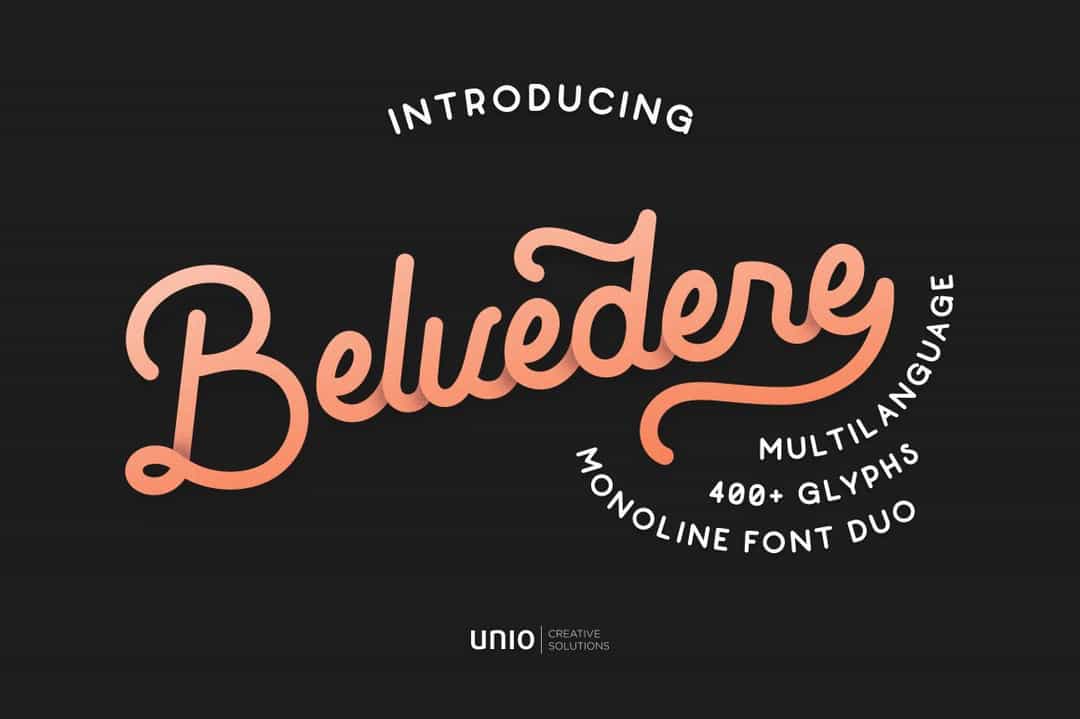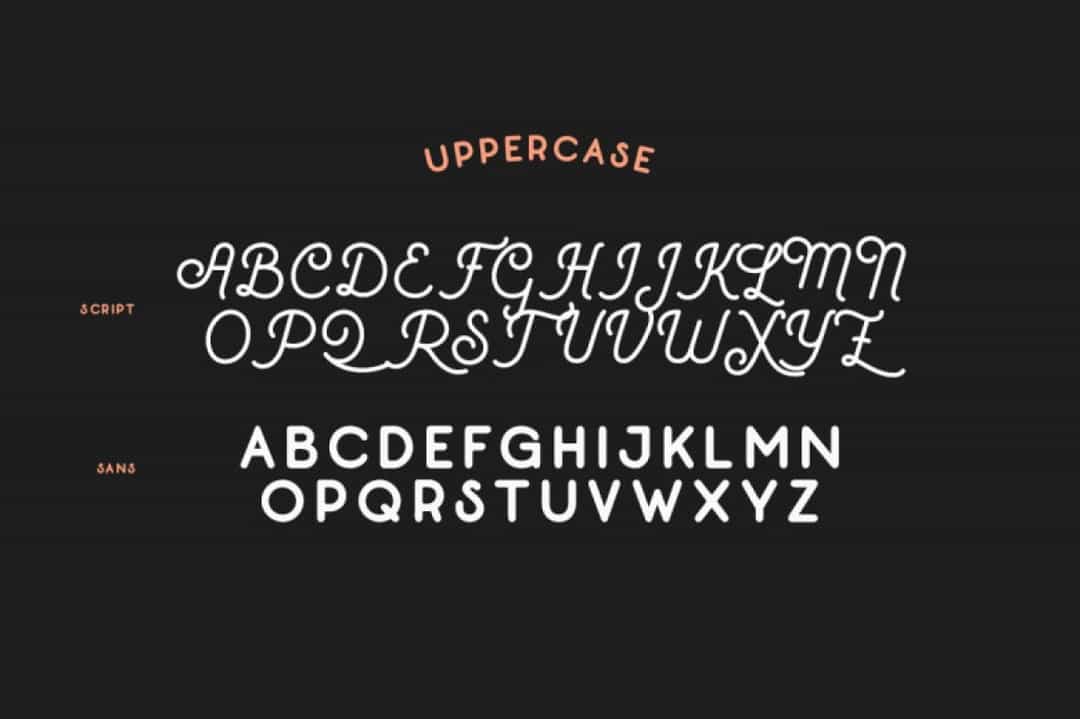
Introducing Belvedere Font. “Belvedere” is a one line font duo which were inspired by the typography style of two important decades – never outdated 40’s and 50’s. The vintage font family consists of a mono weight cursive script and a complementary sans-serif. All the characters have been created to improve the general slickness, which is certainly beneficial in making the readability as optimal as possible.